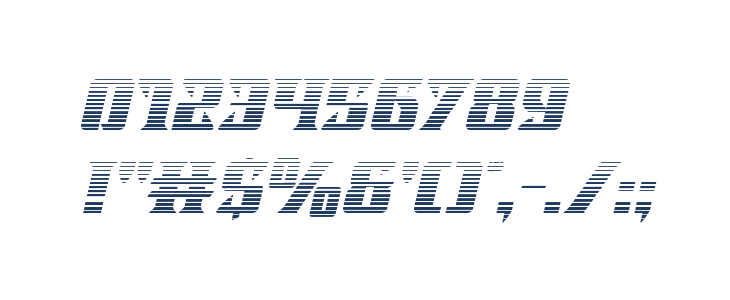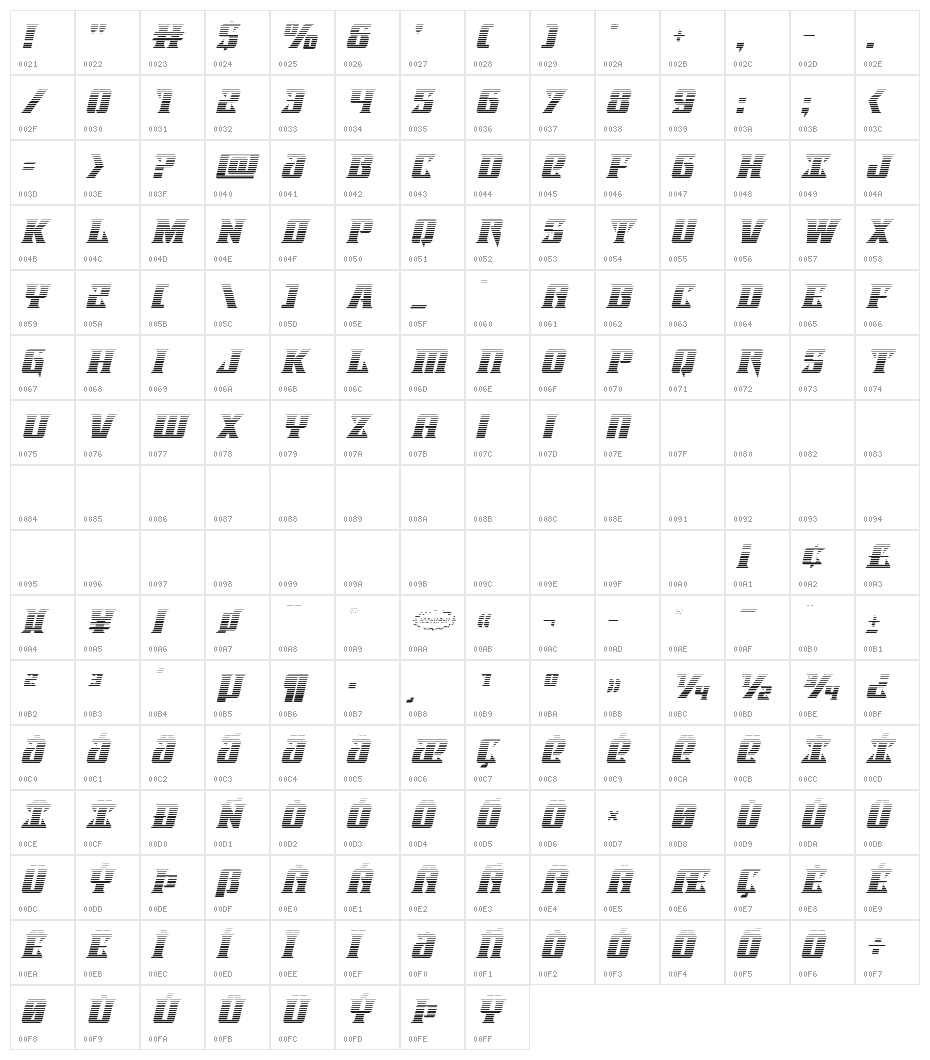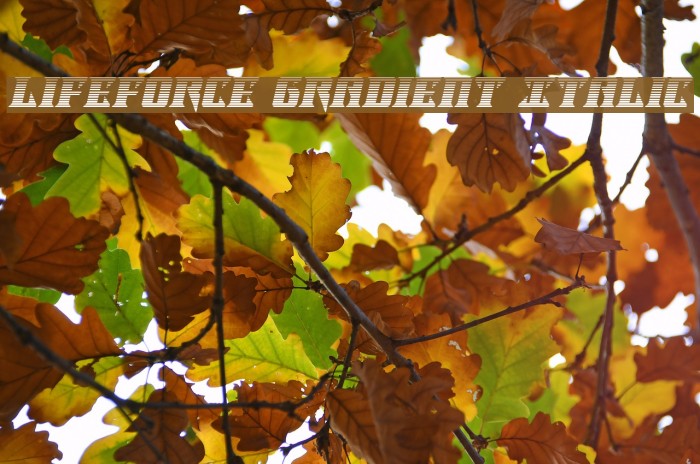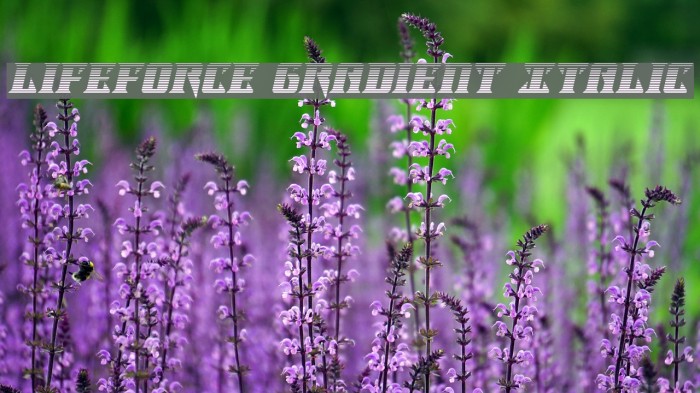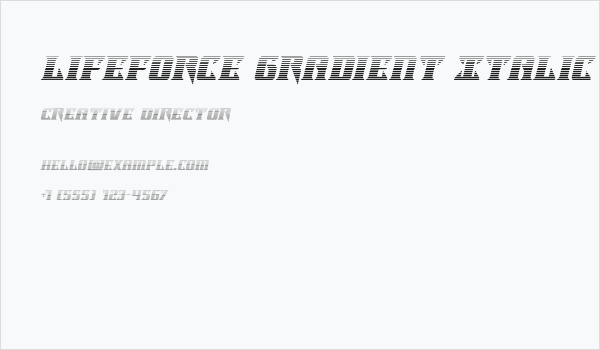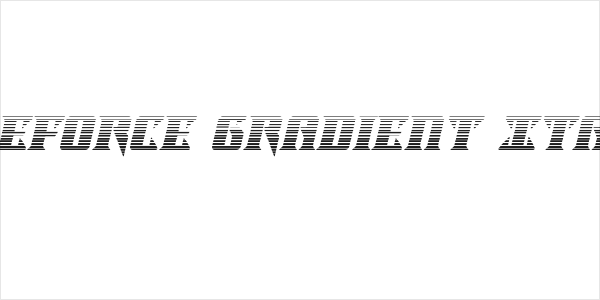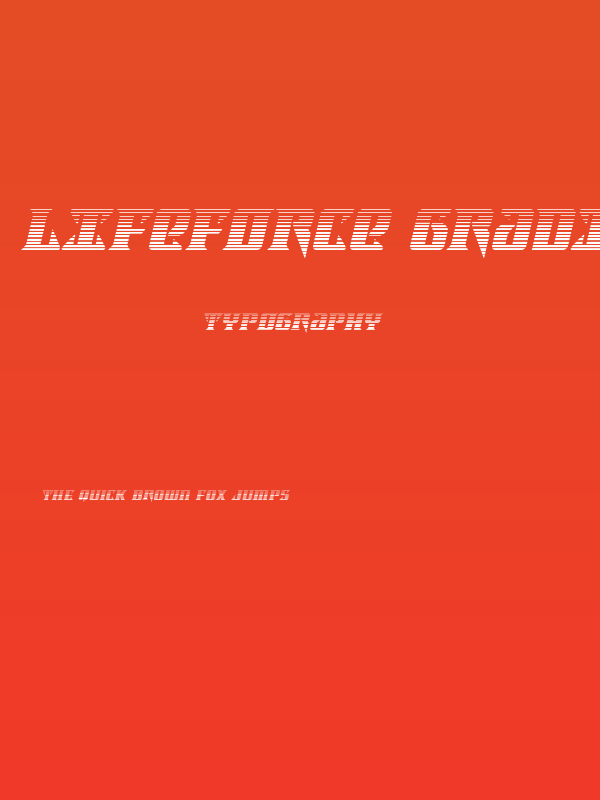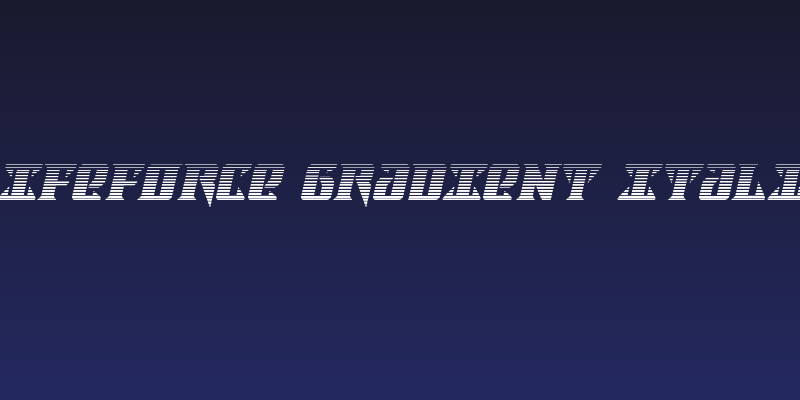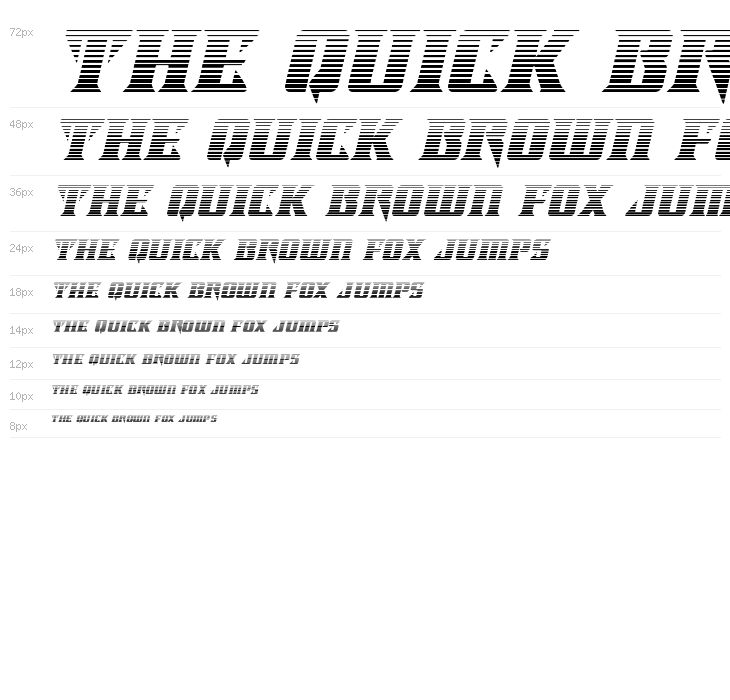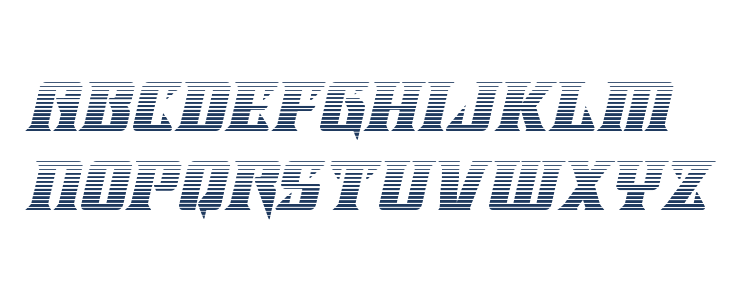
Lifeforce Gradient Italic Font
Lifeforce Gradient Italic Description
This font features a bold, italicized style with a distinct gradient effect created by horizontal lines running through each character. The design is angular and sharp, giving it a futuristic and dynamic appearance. The uppercase and lowercase letters maintain a consistent style, with the uppercase being slightly more pronounced. Numbers and special characters follow the same design principles, ensuring uniformity across all glyphs. The font's unique gradient effect adds depth and movement, making it stand out in any design project.
| Overall Style | Futuristic, Dynamic |
| Proposed Projects | Ideal for sci-fi themed posters, video game titles, and modern branding projects. |